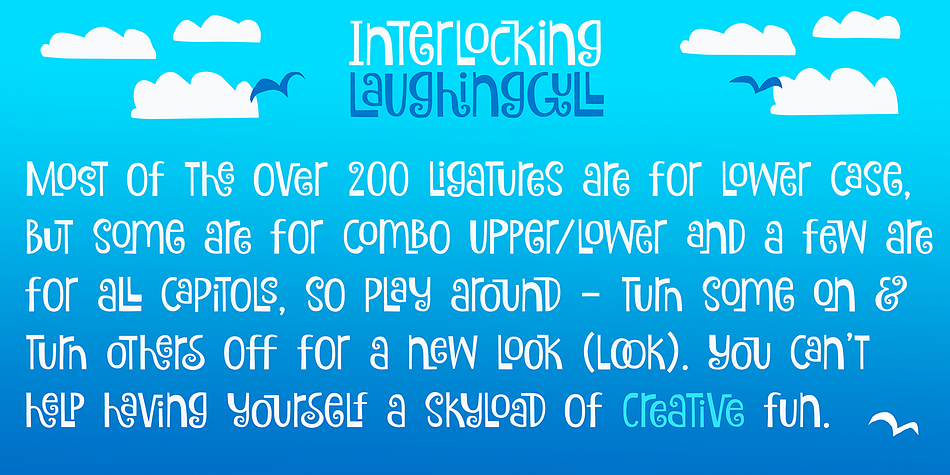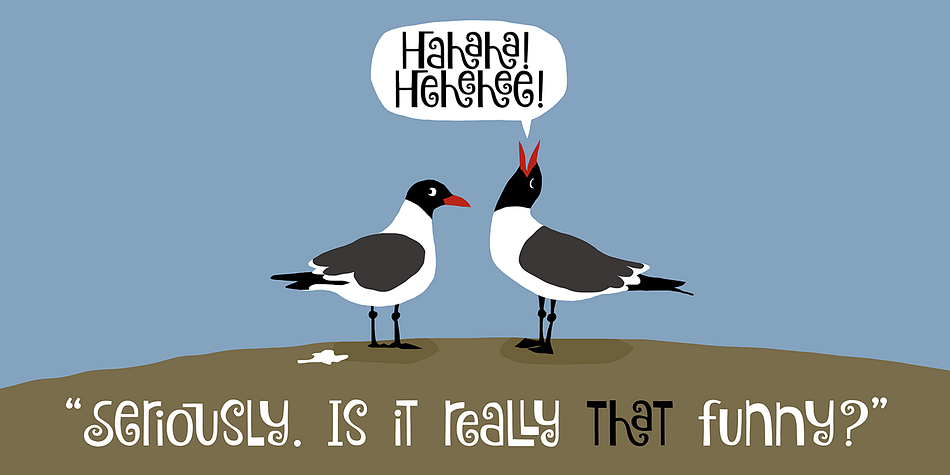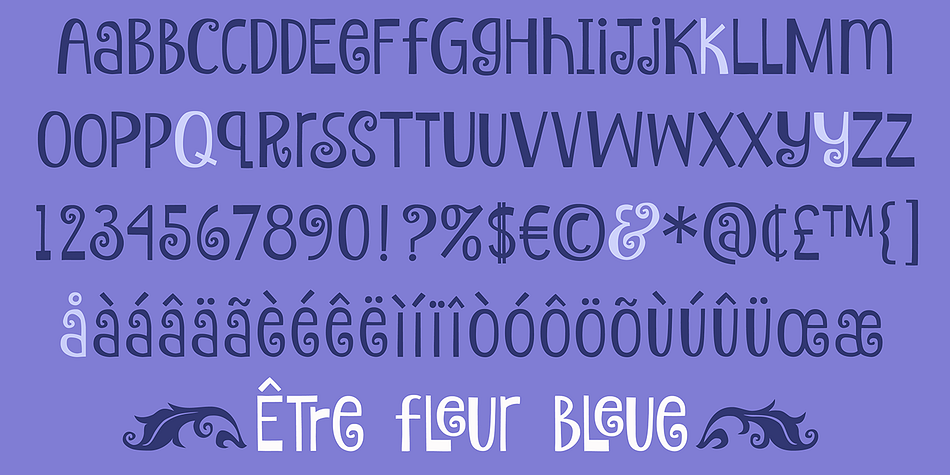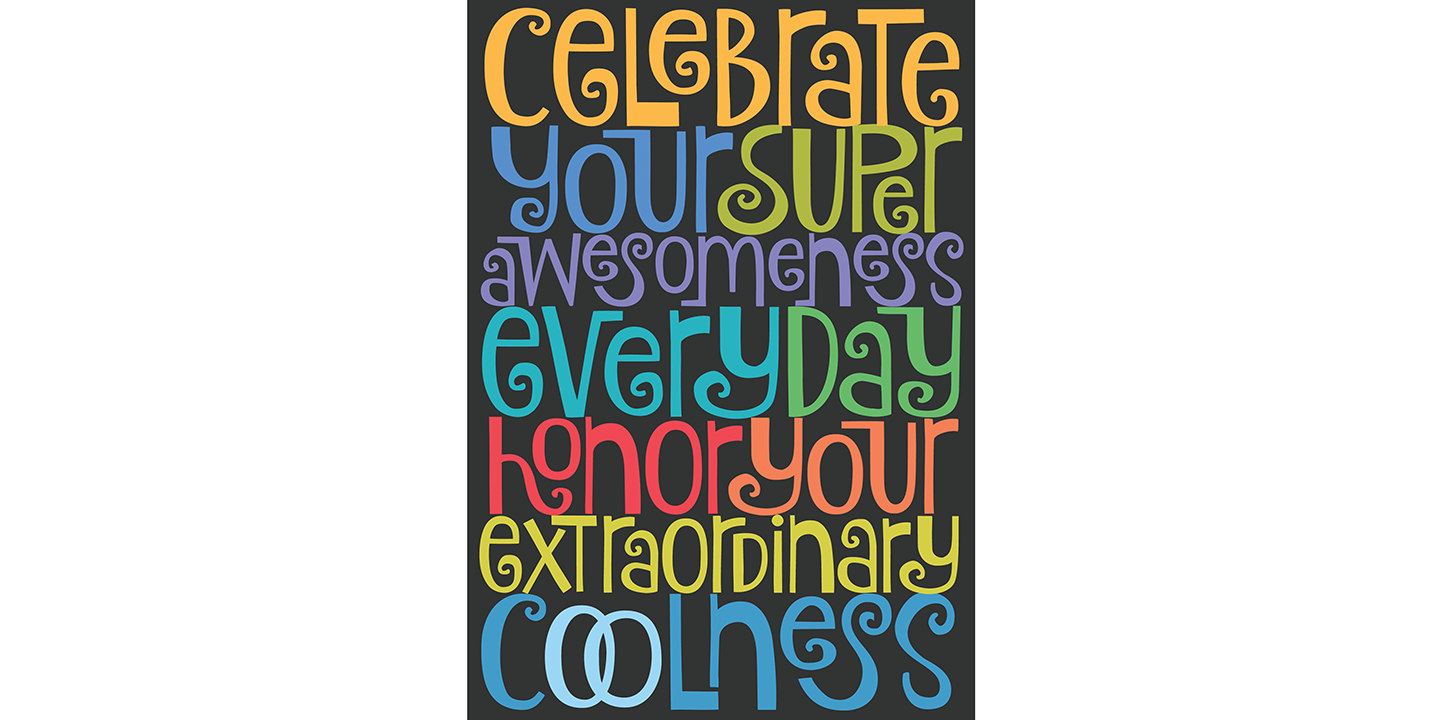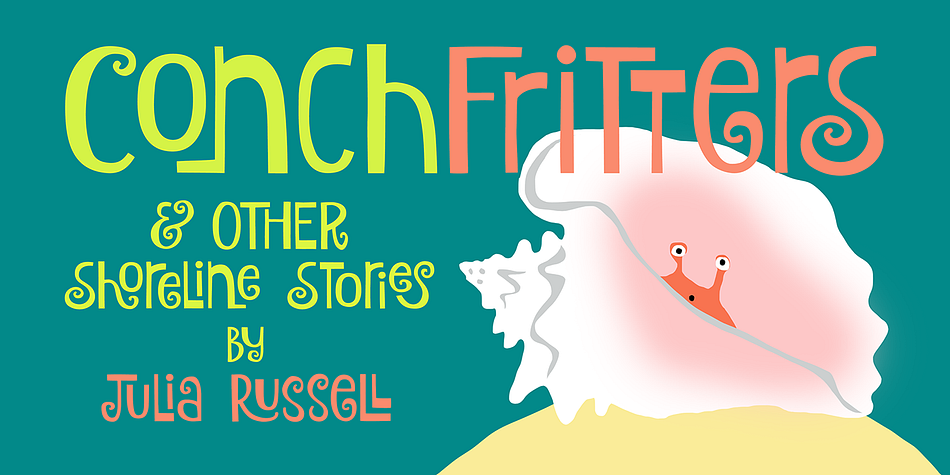
Laughing Gull is a hand drawn and kids font published by Atlantic Fonts.
Distinctive with a sense of humor, Laughing Gull is a fun interlocking font that will fill your project with swirling energy, but won’t snatch your lunch. Handsome straight up, or switch on discretionary ligatures to find a fresh array of interlocks. Most of the ligatures are for lower case, some for upper/lower, and a few are for all-caps. Play around by turning some on and others off and feel free to mix up upper/lower whenever you need a laugh.
Laughing Gull posters also feature Atlantic Fonts’ Digby and Atlantic Doodles.